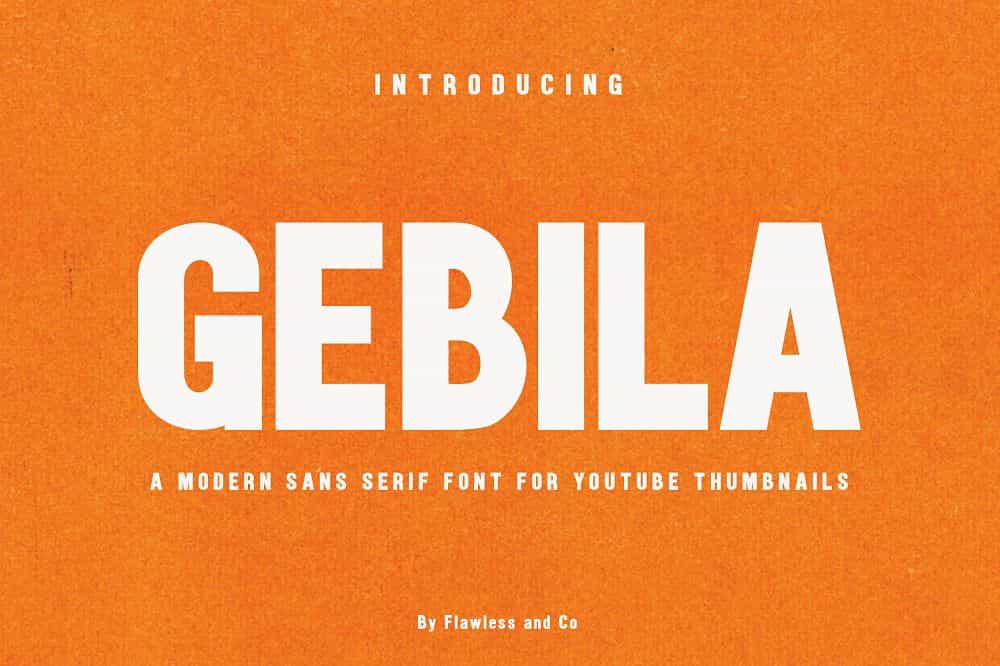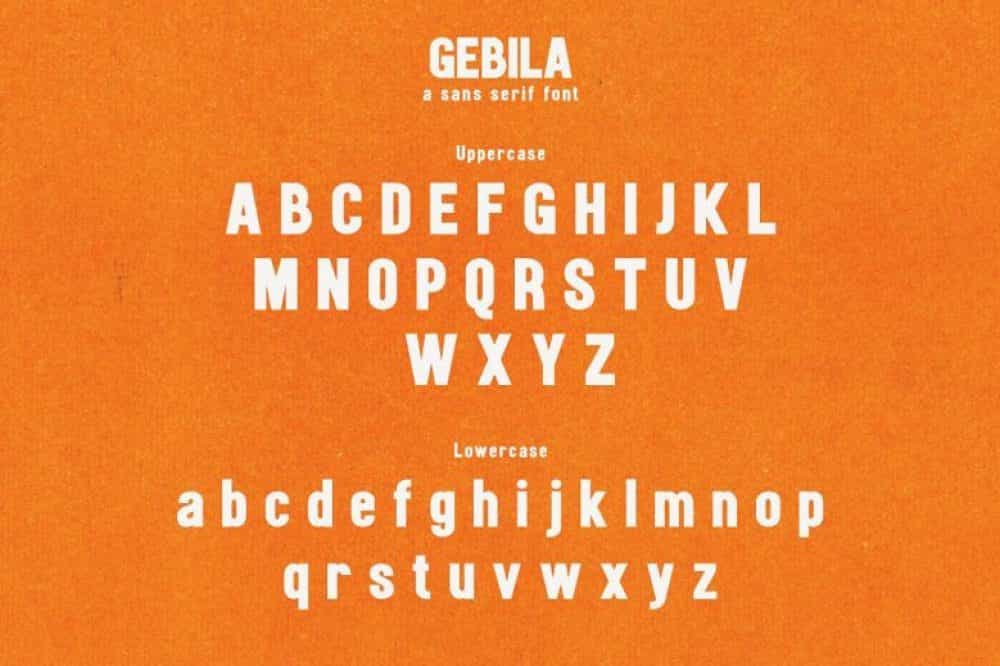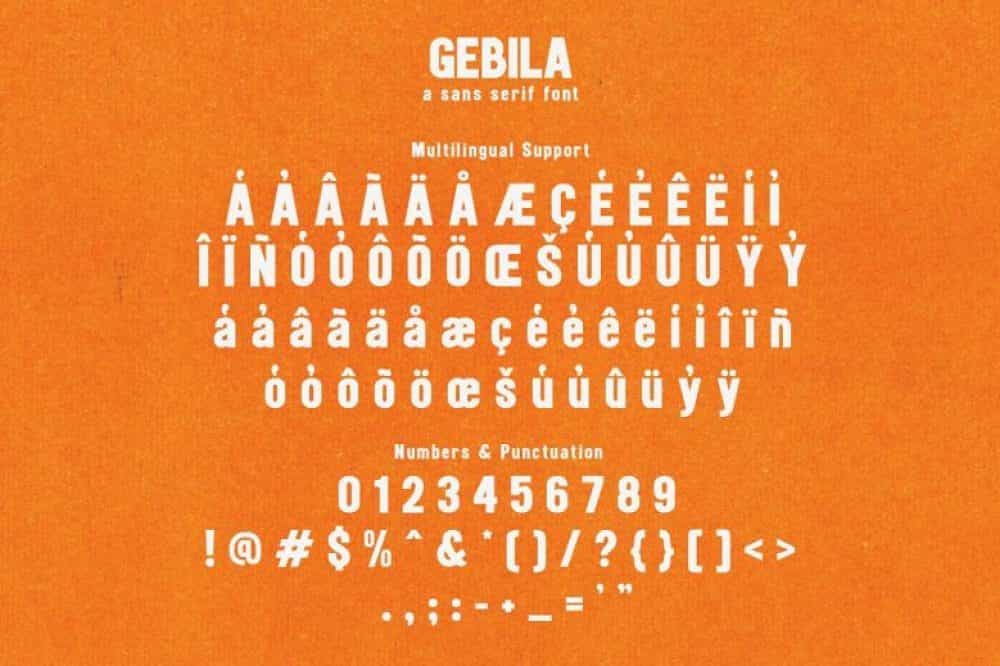
Gebila is a new typeface that is aggressive and eye-catching, perfect for your YouTube thumbnails to help them pop. Due to the simple and sleek design of the Gebila, you can easily associate it with the modern and professional look that can suit almost any YouTube channel.